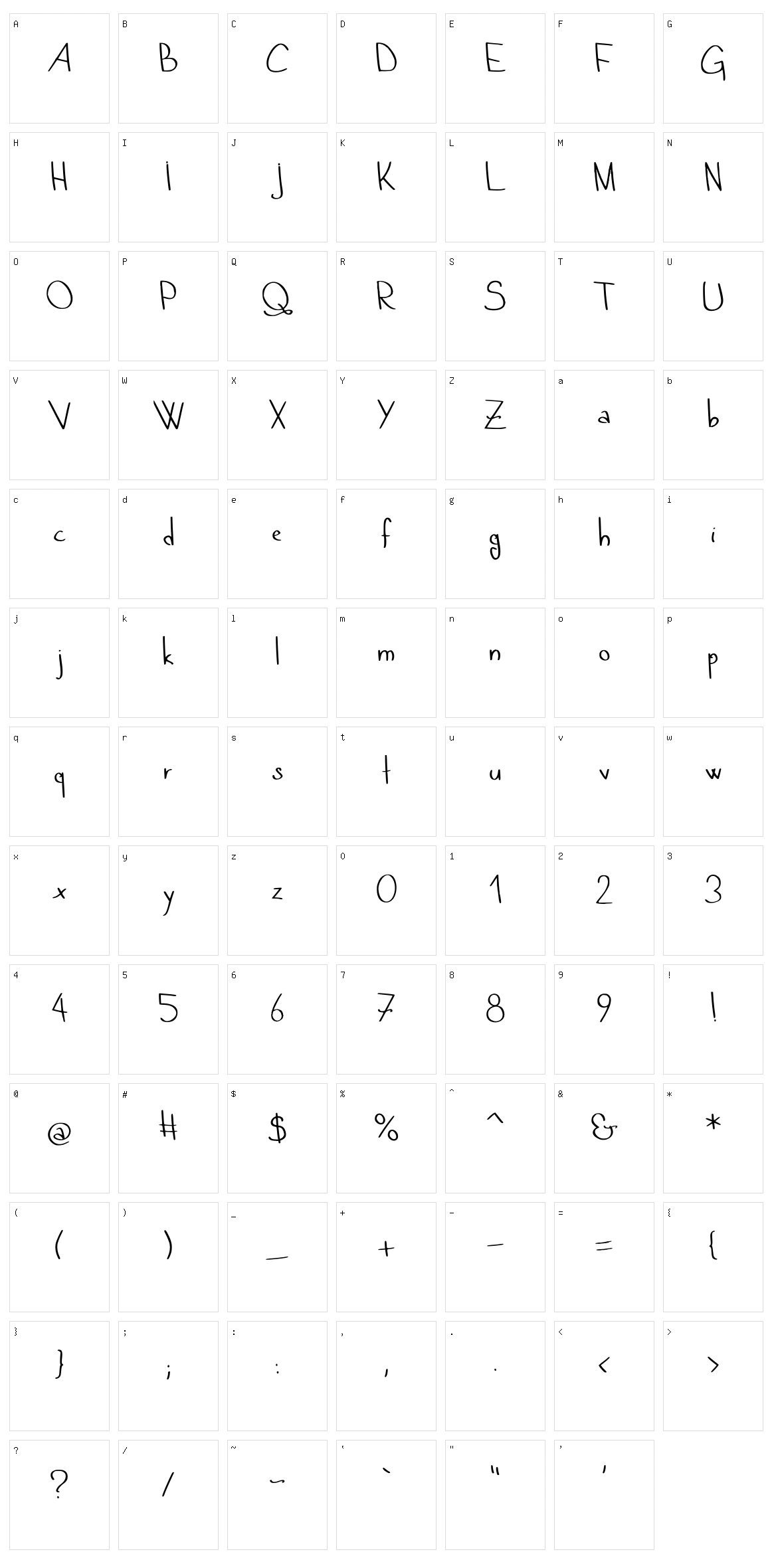
The free font Quand tu dors... is carefully designed by -arnaud-, showcasing a thoughtful balance of creativity and usability and falls under the Script font style. When you download the ZIP file, it contains only 23.24 KB of font files, making it lightweight and quick to download. Please review the license details below to understand permitted usage and distribution rights. If license information is not available, we recommend using this font for personal projects only or contacting the author directly for commercial usage permissions.